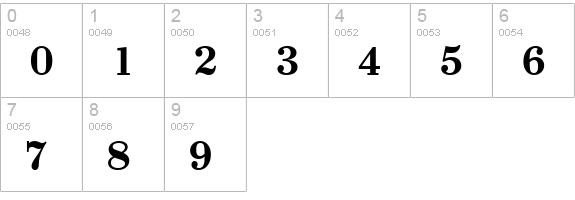
WichitaSerial-Bold is a strong, high-contrast variant in the WichitaSerial typeface family \xE2\x80\x94 well suited to headlines, attention-grabbing titles, and strong calls-to-action.
WichitaSerial-Bold is a bold and modern typeface that exudes confidence and strength. With its clean lines and strong presence, this font is perfect for headlines, titles, and branding projects that demand attention. The bold weight of WichitaSerial-Bold makes it stand out on any design, adding a touch of boldness and sophistication. What makes WichitaSerial-Bold even more appealing is that it is available for free download at FontsMarket.com. This means you can easily access this versatile font and incorporate it into your projects without any cost. Whether you are a designer looking for a striking typeface or a business owner in need of a strong visual identity, WichitaSerial-Bold is the perfect choice for making a bold statement. Download it now and elevate your designs with this stylish and impactful font.